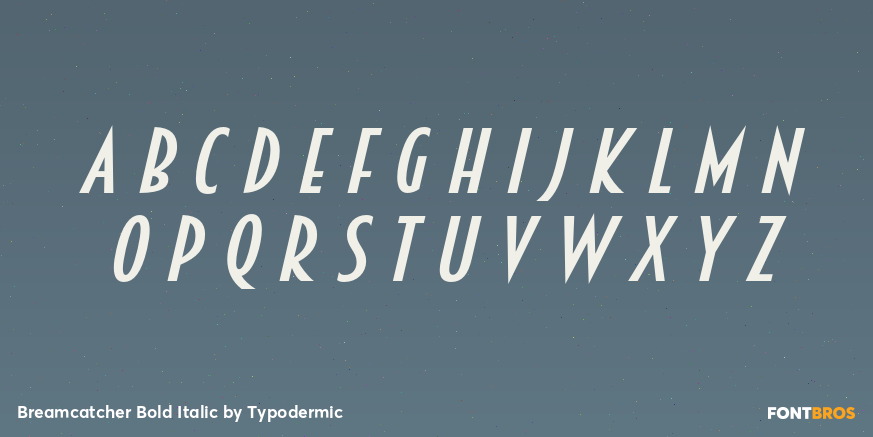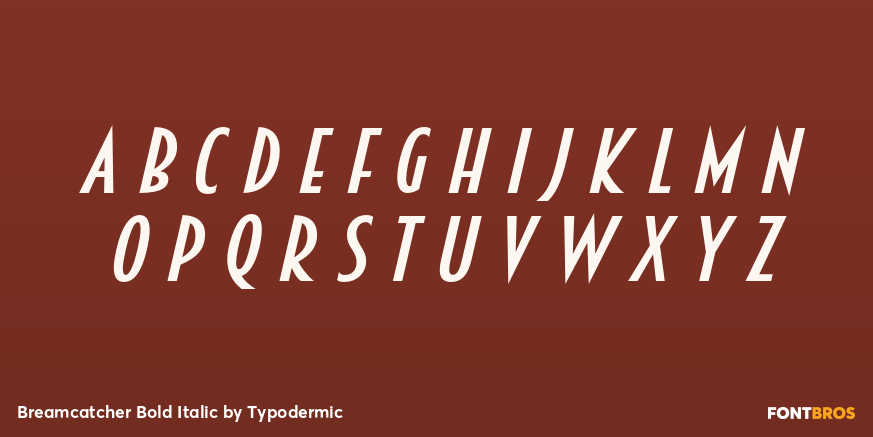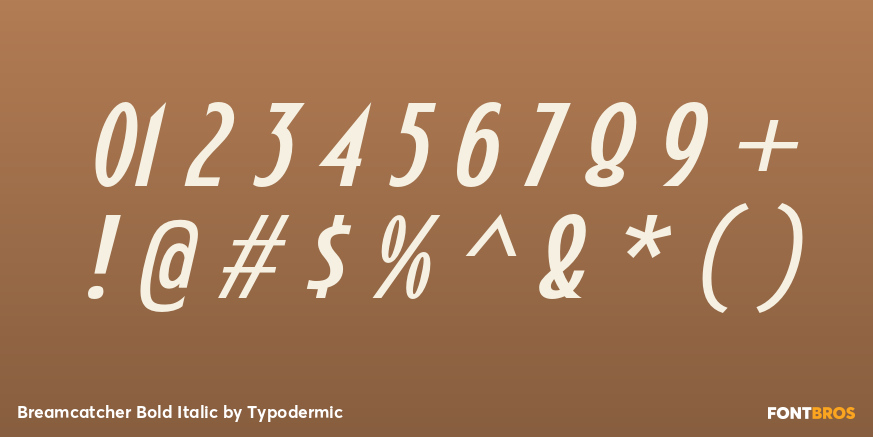
Breamcatcher Bold Italic
Art Deco is easy to overplay. A restored hotel bar, sleeper train or historic cinema may need the sophistication of the early 1930s without looking like every surface was designed for a Gatsby party. Breamcatcher approaches the period more quietly. Based on commercial lettering from 1934, its tall, narrow forms, generous spacing and sweeping diagonals create atmosphere through proportion rather than geometric ornament.
That makes it particularly useful for hospitality projects with some history behind them. Cocktail lounges inside restored hotels, supper clubs, rooftop restaurants in historic towers and contemporary brasseries can use Breamcatcher for venue names, menu-section headings, private dining rooms, elevator directories and evening programs. Its narrow construction allows long names to remain spacious instead of becoming cramped.
Luxury rail provides another natural setting. Sleeper-train operators and premium rail experiences need route names, dining-car menus, cabin cards, station-lounge graphics, luggage tags and destination headings that can carry a sense of occasion without becoming theatrical. Breamcatcher’s elongated proportions suit these formats particularly well, while its italic can distinguish dining, excursions or evening-service information from the main identity.
Restored cinemas, repertory theatres, cabaret rooms and jazz venues connect naturally to Breamcatcher’s sheet-music origins. Season titles, screening-series graphics, auditorium names, performer names and foyer signage can evoke the early sound-film and dance-orchestra era without imitating a specific movie-poster style. The same restraint suits prestige film and television graphics when a period hotel, nightclub, restaurant or theatre needs believable typography of its own.
Adaptive-reuse architecture offers a contemporary extension. Former hotels converted into residences, old cinemas repurposed as hospitality venues and 1930s office towers becoming mixed-use developments often need identities that acknowledge the building’s history without freezing it there. Breamcatcher can handle building names, rooftop venues, residents’ lounges and amenity names while a quieter companion face carries practical information.
Adult non-alcoholic beverages provide another useful role. Alcohol-free aperitifs, botanical mixers, bitter citrus tonics and sparkling teas designed for bars rather than soft-drink aisles often need to look grown-up without merely imitating spirits packaging or retreating into wellness minimalism. Breamcatcher’s tall proportions suit bottle labels and cartons, while its 1930s hospitality character can suggest cocktail-bar culture without requiring alcohol.
Breamcatcher Bold Italic by Typodermic